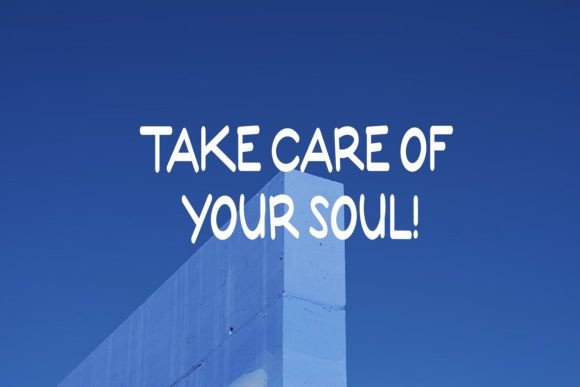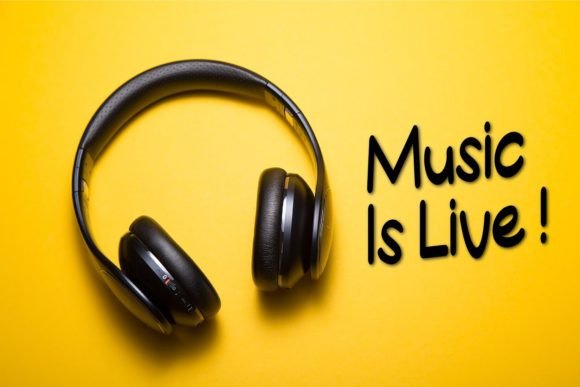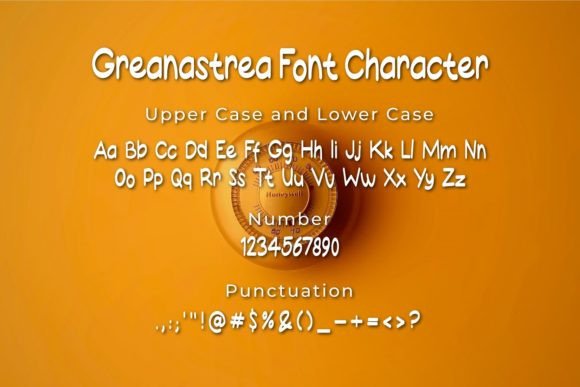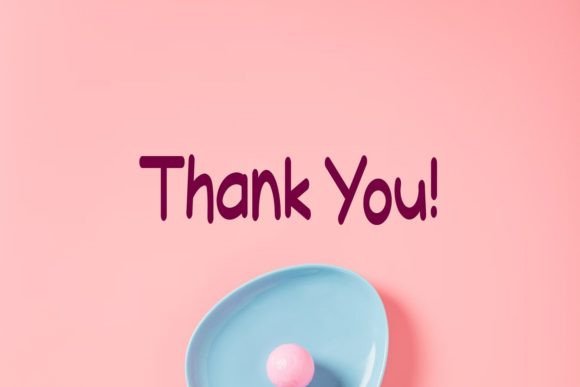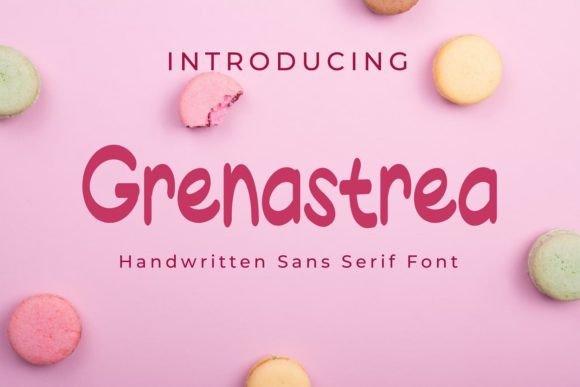
Introducing Grenastrea Font: The Perfect Handwritten Sans Font for Your Creative Projects
Are you a designer or crafter looking for a unique and stylish font to elevate your creative projects? Look no further than Grenastrea Font, a beautiful sans handwritten font that is perfect for a wide range of applications. From branding projects and logos to wedding designs and social media posts, Grenastrea Font is the ideal choice for anyone seeking to add a touch of personality and sophistication to their work.
What is Grenastrea Font?
Grenastrea Font is a sans handwritten font that boasts a clean and modern aesthetic. Its smooth, flowing lines and rounded edges give it a friendly and approachable feel, making it perfect for projects that require a personal touch. Whether you’re designing a logo, creating a wedding invitation, or crafting a social media post, Grenastrea Font is sure to impress.
What Can I Use Grenastrea Font For?
The versatility of Grenastrea Font is one of its standout features. This font can be used for a wide range of creative projects, including:
- Branding projects: Create a lasting impression with a custom logo or brand identity that showcases your unique style.
- Logos: Design a professional and memorable logo that sets your business apart.
- Wedding designs: Add a touch of romance and elegance to your wedding invitations, programs, and other stationery.
- Social media posts: Elevate your social media presence with eye-catching graphics and typography.
- Advertisements: Create attention-grabbing ads that showcase your products or services.
- Product packaging: Add a personal touch to your product packaging and make it stand out on store shelves.
- Product designs: Create stunning product designs that showcase your brand’s personality.
- Labels: Design custom labels that add a touch of sophistication to your products.
- Photography: Add a watermark or overlay to your photos with Grenastrea Font for a professional touch.
- Invitations: Create beautiful and unique invitations for any occasion.
- Stationery: Design custom stationery that reflects your personal style.
Why Choose Grenastrea Font?
So why should you choose Grenastrea Font for your creative projects? Here are just a few reasons:
- Unique and stylish: Grenastrea Font boasts a unique and stylish design that will set your projects apart.
- Versatile: This font can be used for a wide range of creative projects, from branding and logos to wedding designs and social media posts.
- Easy to read: Grenastrea Font is clean and easy to read, making it perfect for body text and headlines.
- Customizable: You can customize Grenastrea Font to fit your project’s needs, from adjusting the font size to adding your own colors and textures.
Tips for Using Grenastrea Font
Here are a few tips for getting the most out of Grenastrea Font:
- Experiment with different font sizes: Grenastrea Font looks great in a variety of font sizes, from large headlines to smaller body text.
- Pair with other fonts: Try pairing Grenastrea Font with other fonts to create a unique and visually appealing typography.
- Add colors and textures: Customize Grenastrea Font with your own colors and textures to make it truly unique.
- Use for headlines and body text: Grenastrea Font is perfect for both headlines and body text, making it a versatile choice for any project.
In conclusion, Grenastrea Font is a beautiful and versatile sans handwritten font that is perfect for a wide range of creative projects. Its unique and stylish design, combined with its ease of use and customization options, make it an ideal choice for designers and crafters. Whether you’re working on a branding project, designing a logo, or crafting a social media post, Grenastrea Font is sure to impress.